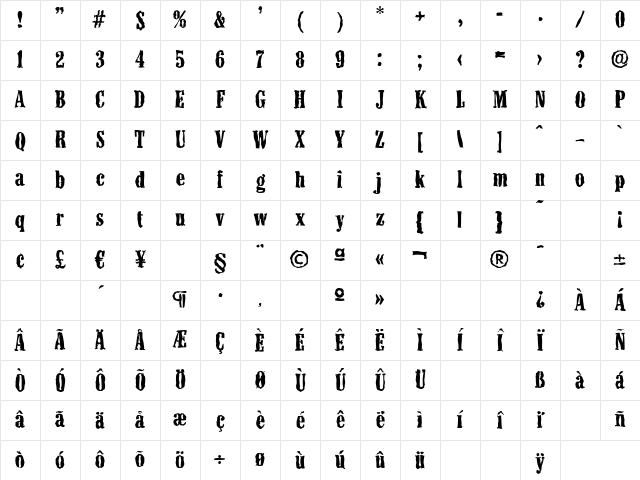
ColonelRandom Bold
Design Context for ColonelRandom
ColonelRandom is a composed and adaptable typeface that performs quietly and consistently across a wide range of design contexts. Its bold stroke weight gives it real presence on the page.